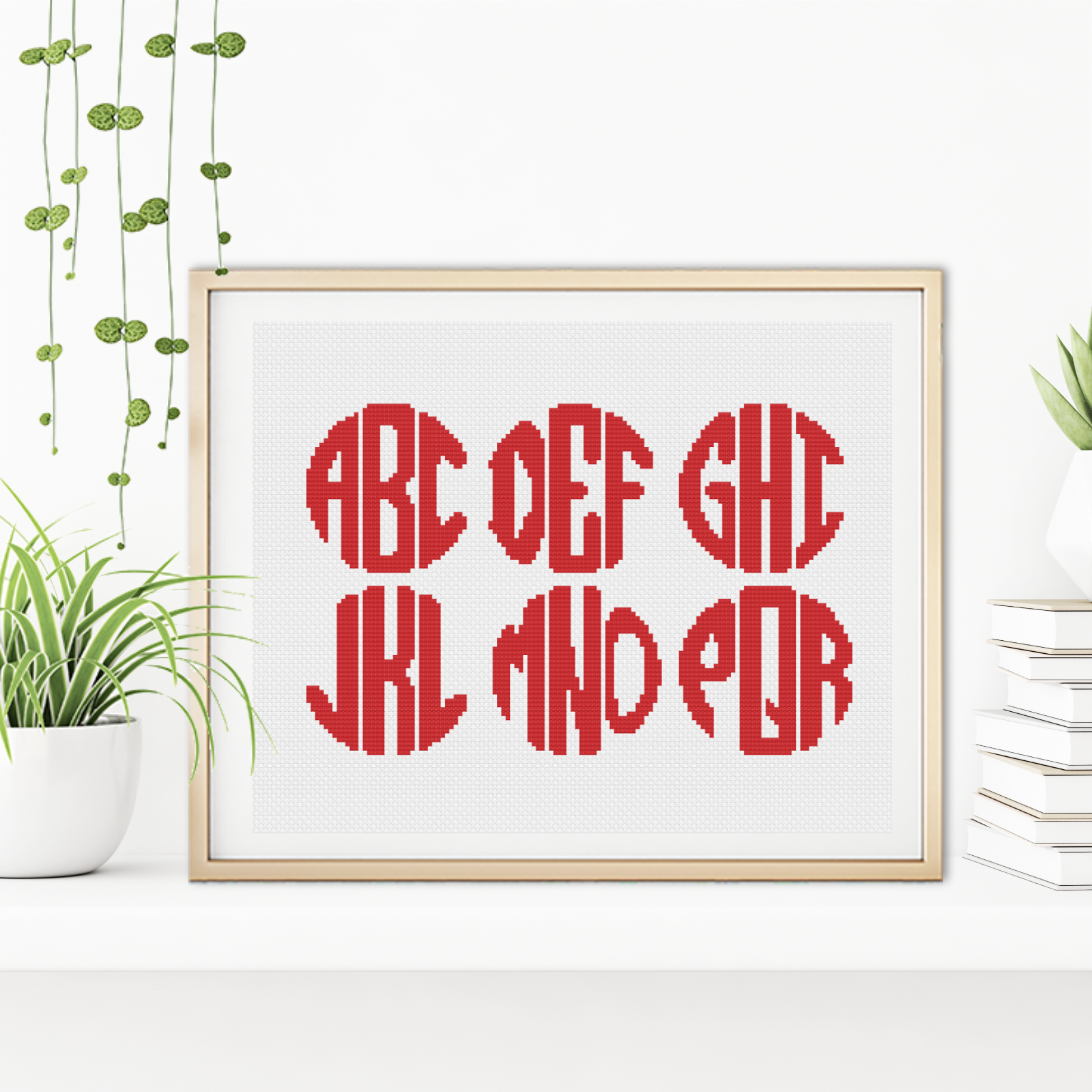
Cross Stitch Font
This Chart contains all 3 versions (left, middle, right) of all letters of the alphabet so that you can create personalised Monograms
Tallest letter is 39 stitches high
On 14 count this makes the middle initial just under 3 inches high so this would be lovely in a 4″ hoop to make a gorgeous personalised bauble or even a coaster